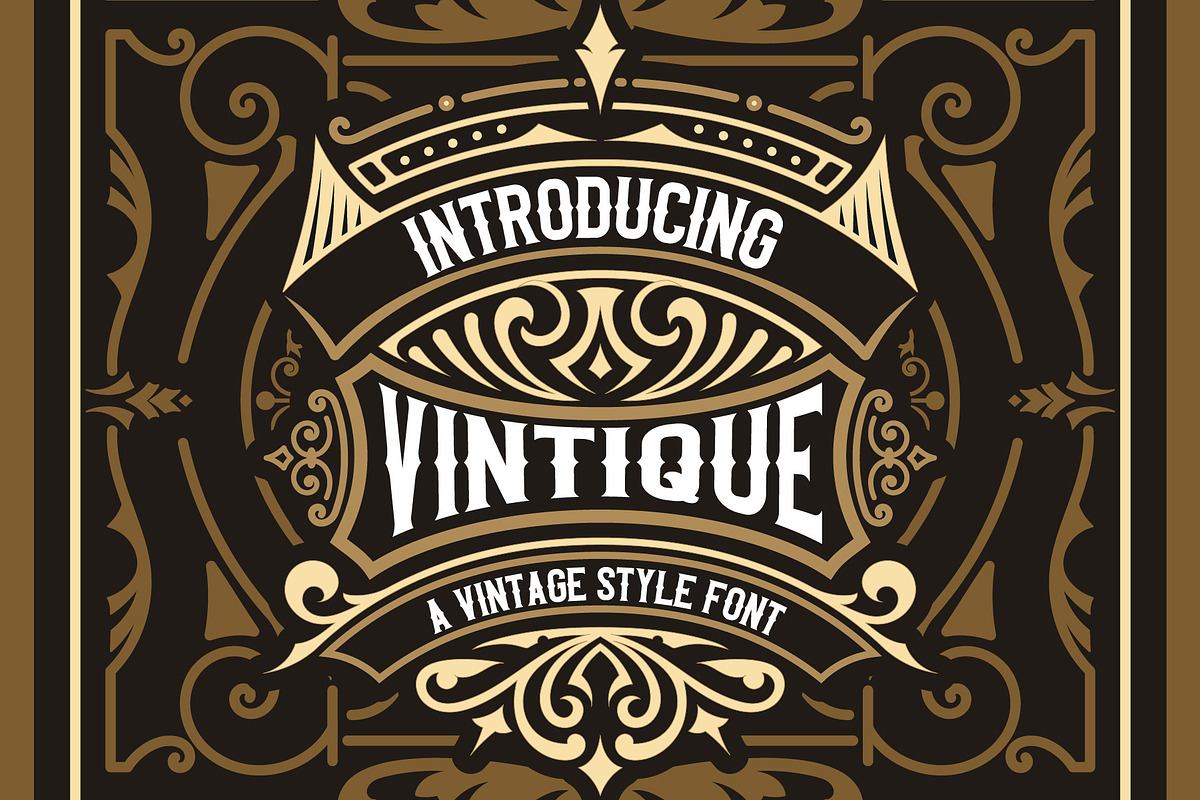
Vintique Vintage Stylist Font Free Download
Vintique Vintage Stylist Font Free Download is a beautifully crafted typeface that brings timeless elegance and vintage flair to your designs. With its ornate curves, classic details, and stylish retro aesthetic, this font is perfect for logos, product packaging, boutique branding, labels, and posters that aim to evoke a sense of nostalgia and sophistication.
Designers love Vintique Vintage Stylist Font Free Download for its versatility—it adds a touch of refinement to both modern and old-school projects. Whether you're channeling art deco vibes or mid-century charm, this typeface enhances your visuals with character and class.